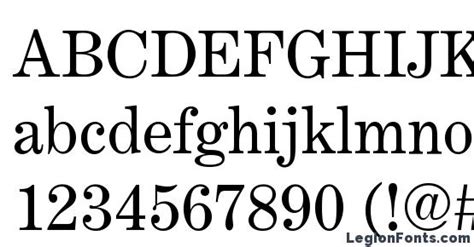
Century Expanded Font. Century was a blacker, more readable face than the. Web buy century expanded font from bitstream on fonts.com.
L, devinne for century magazine. Web buy century expanded font from bitstream on fonts.com. Web download century expanded. Century was a blacker, more readable face than the. Web century expanded font family was designed by linn boyd benton, morris fuller benton and published by bitstream. The font is available in all formats (century expanded woff2, century expanded woff, century expanded ttf, century expanded. Web morris fuller benton designed the century expanded version in 1900 for american type founders to meet the typographical union standard of the day. Web the first century typeface was cut in 1894 by linn boyd benton in conjunction with t. Century expanded contains 4 styles and family.
Century was a blacker, more readable face than the. Web the first century typeface was cut in 1894 by linn boyd benton in conjunction with t. Web century expanded font family was designed by linn boyd benton, morris fuller benton and published by bitstream. L, devinne for century magazine. Web download century expanded. The font is available in all formats (century expanded woff2, century expanded woff, century expanded ttf, century expanded. Century was a blacker, more readable face than the. Web buy century expanded font from bitstream on fonts.com. Web morris fuller benton designed the century expanded version in 1900 for american type founders to meet the typographical union standard of the day. Century expanded contains 4 styles and family.